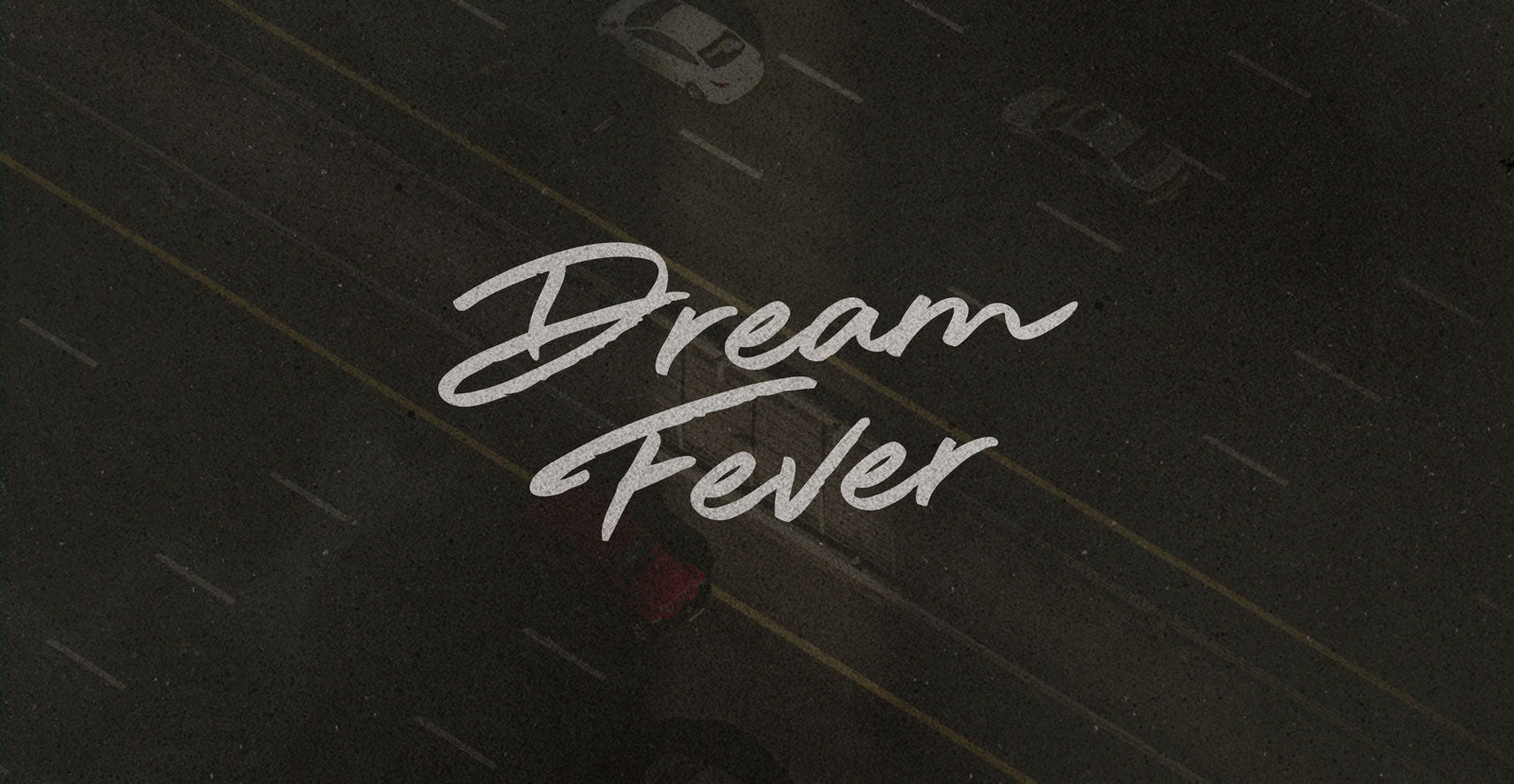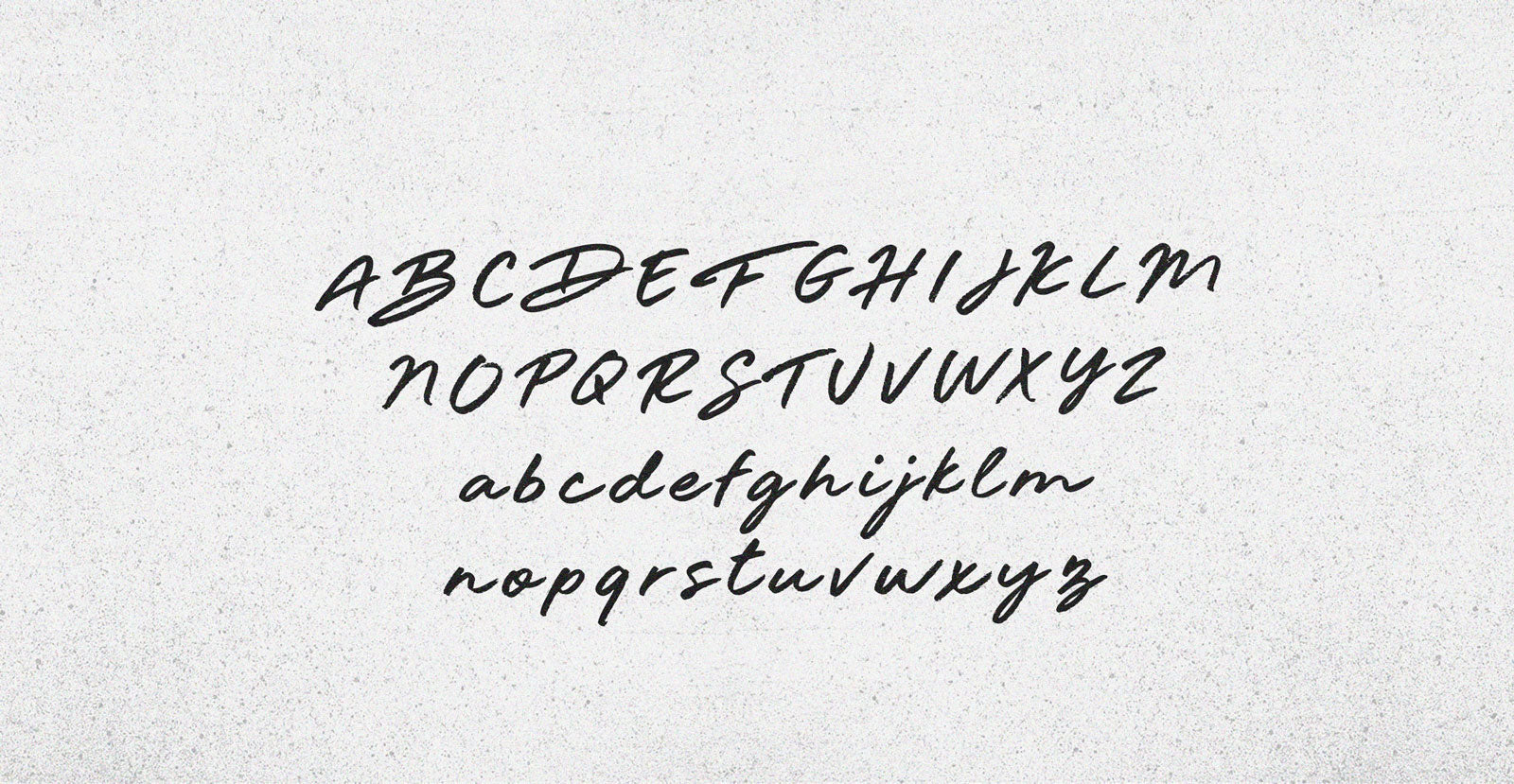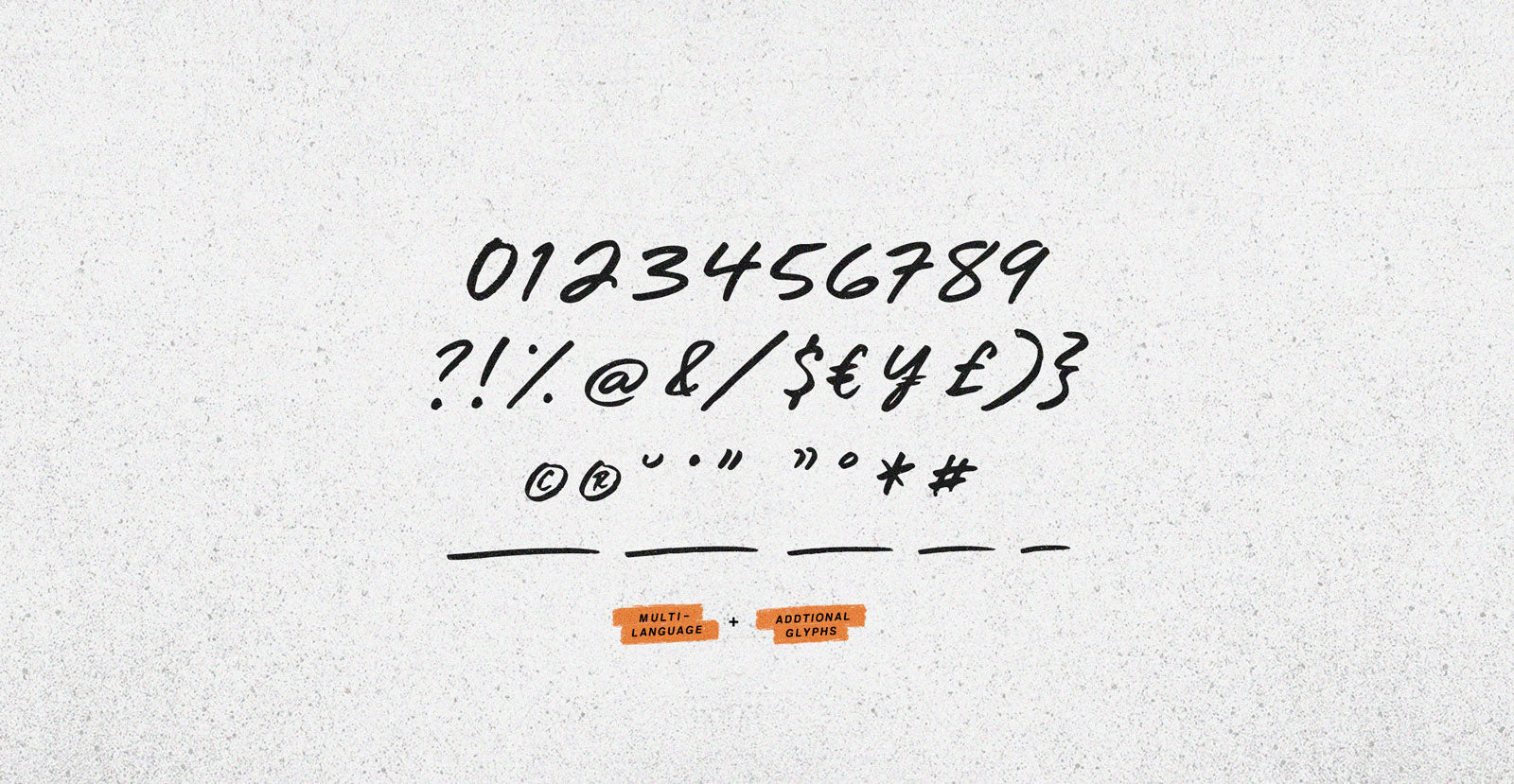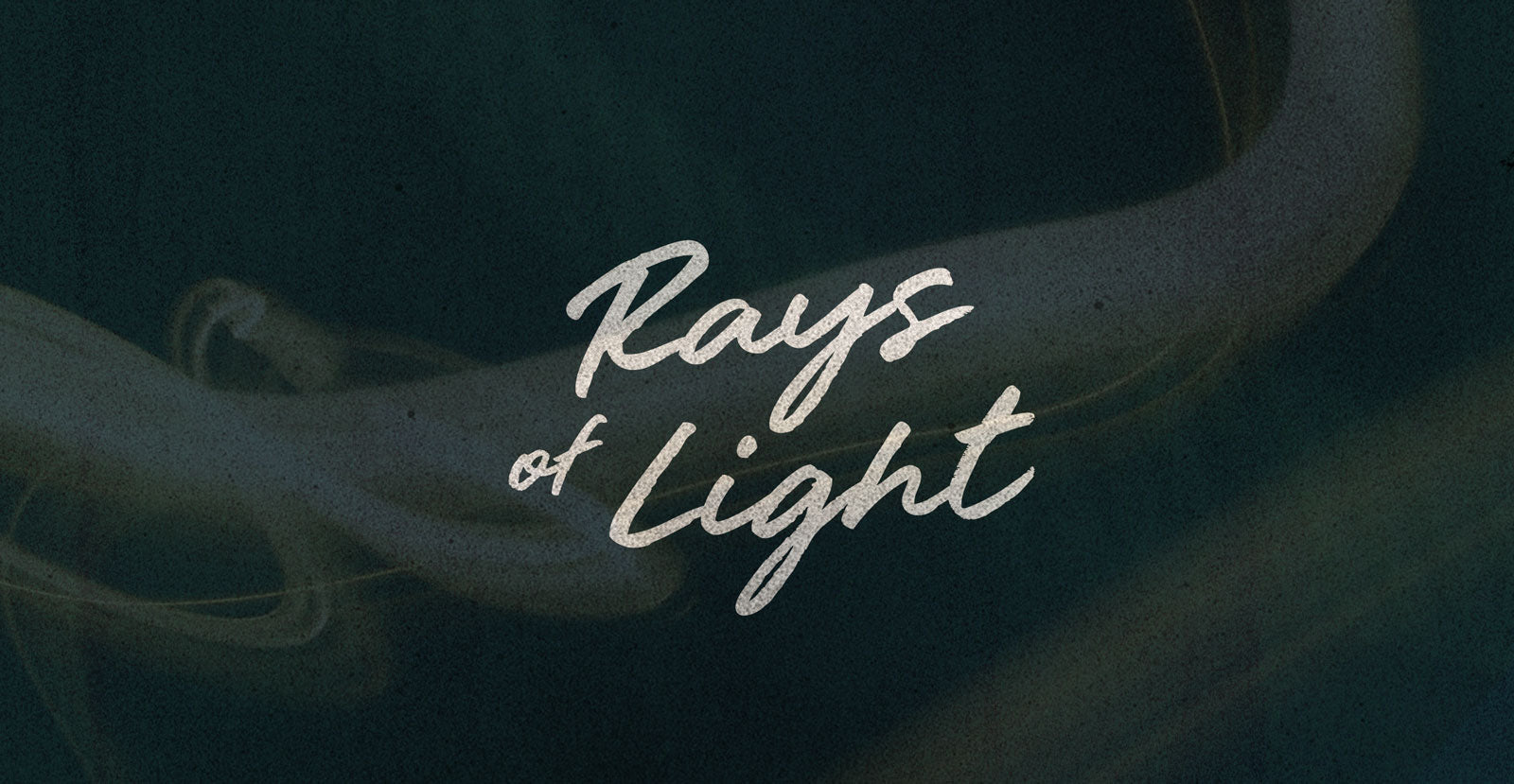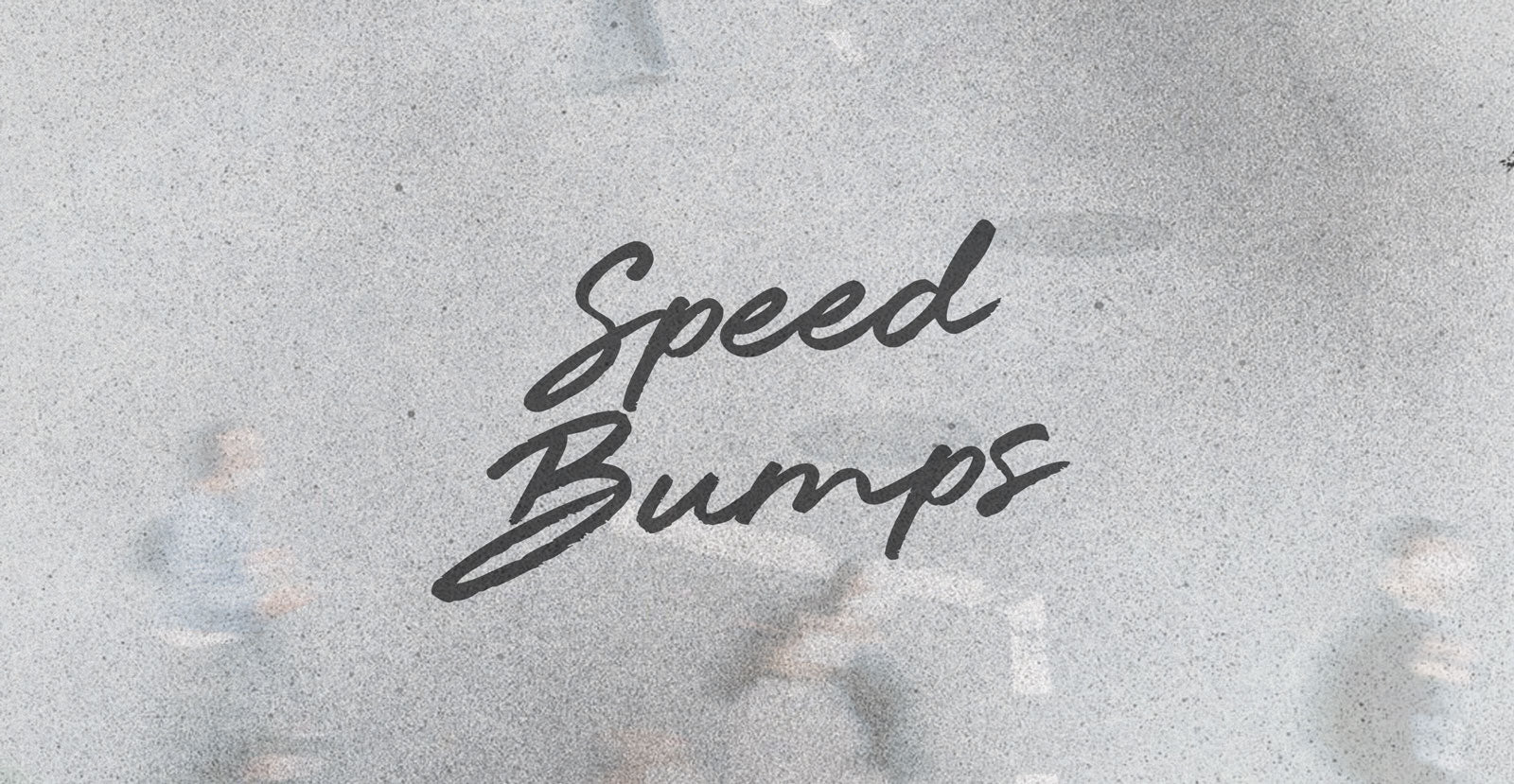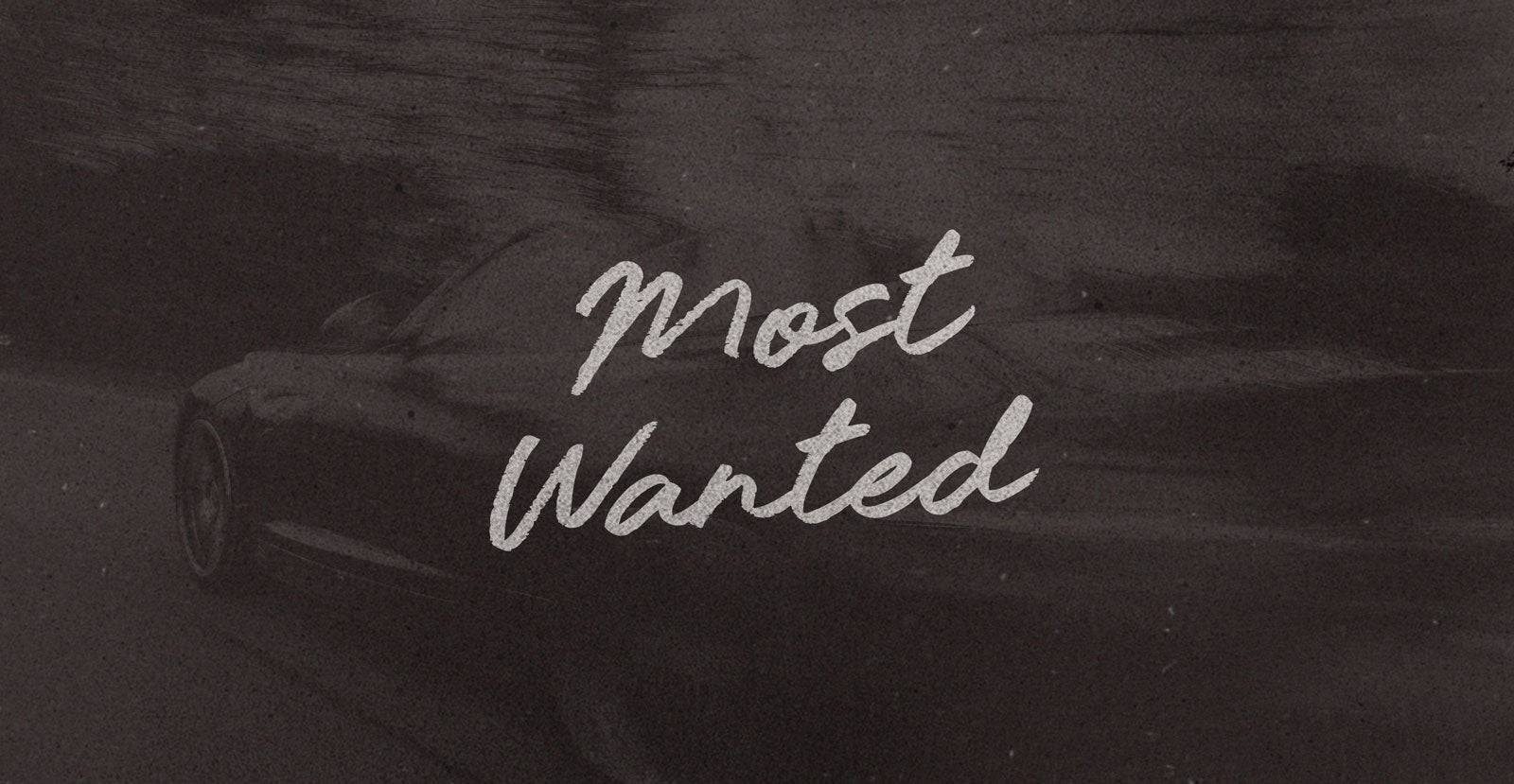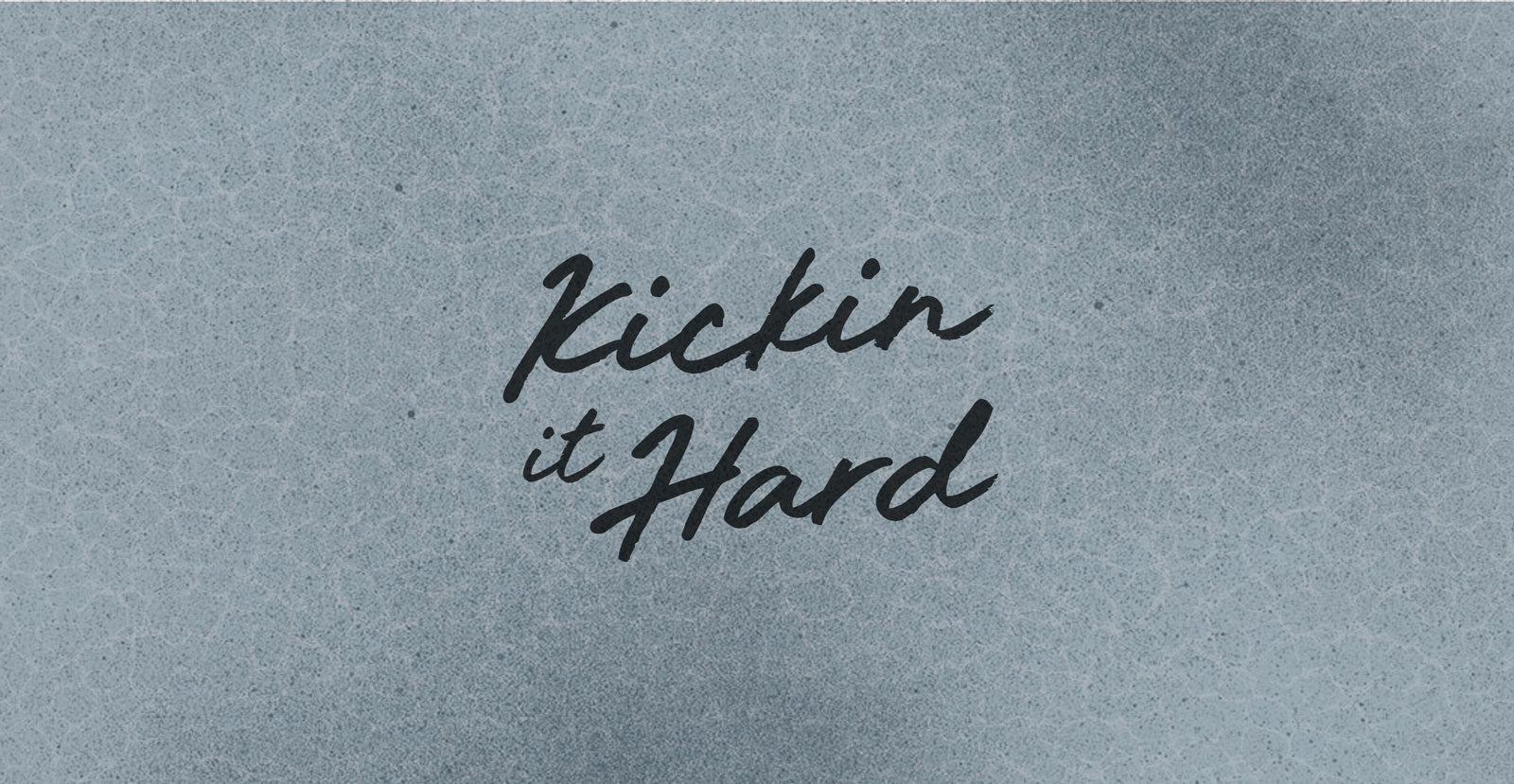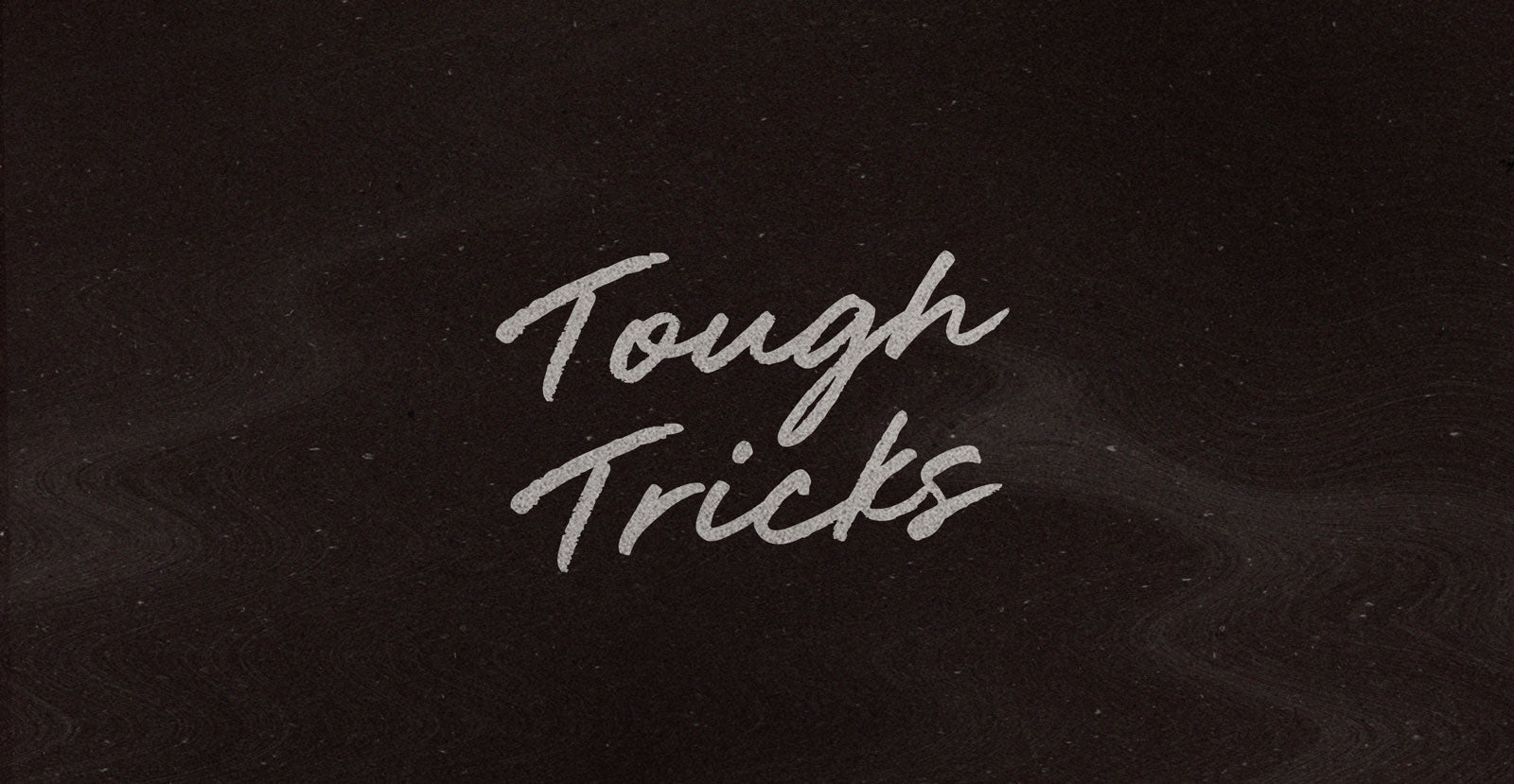
Dream Fever
The orthogonal intersection of exercise and exorcism, ectoplasm and sweat. Dripping deflections the way night terrorizes day, the way day Dream Fever sweats night. It’s all right angles with no angle and nodes on the nose.